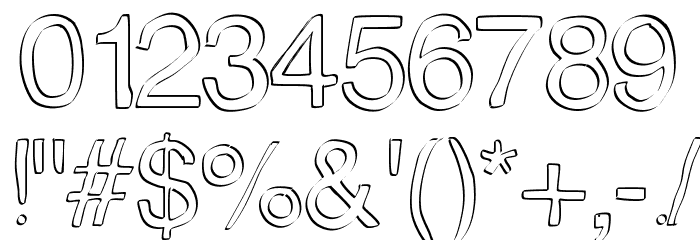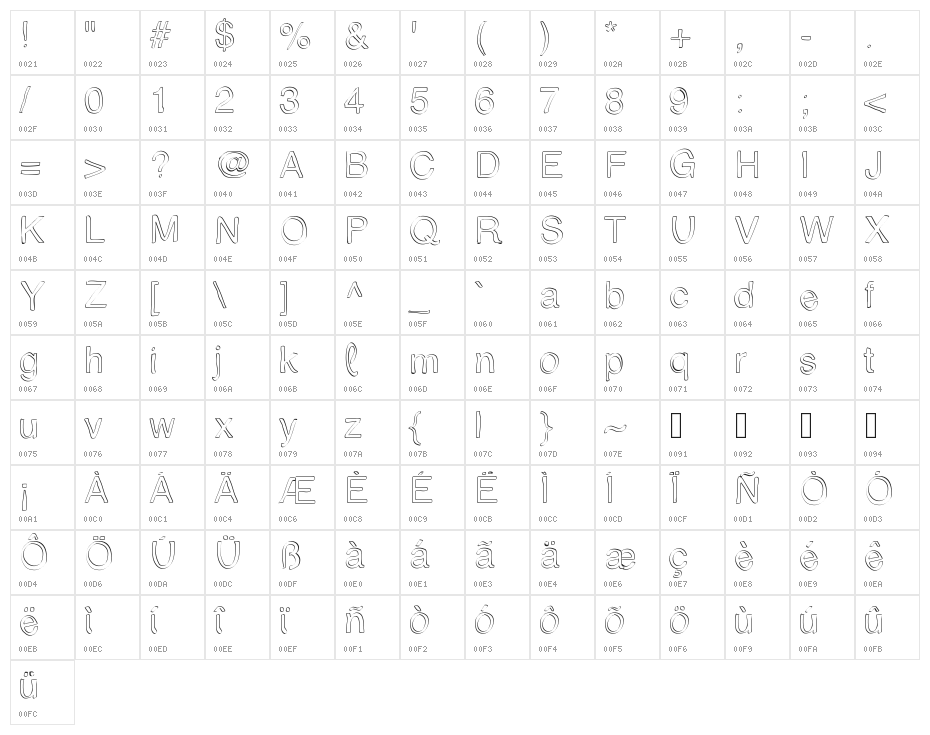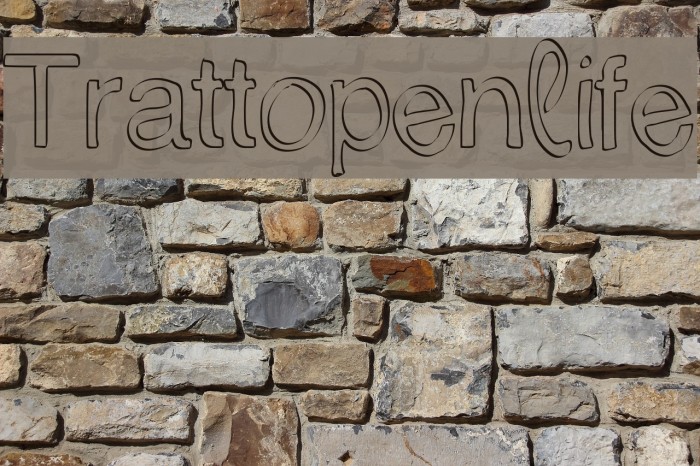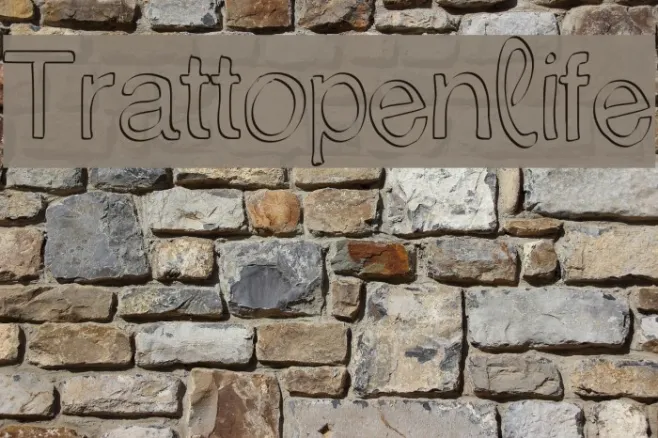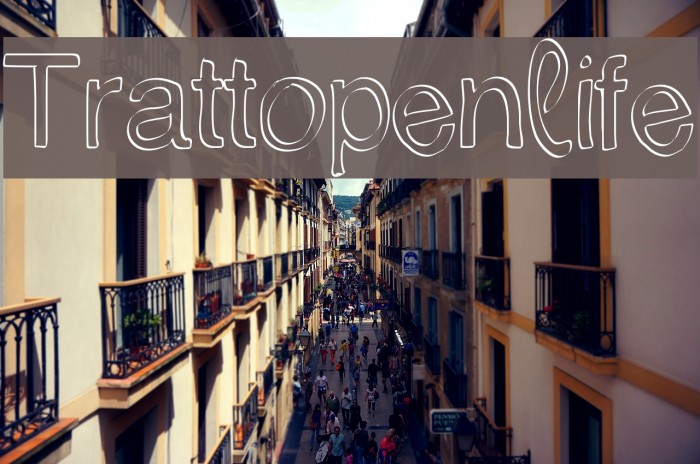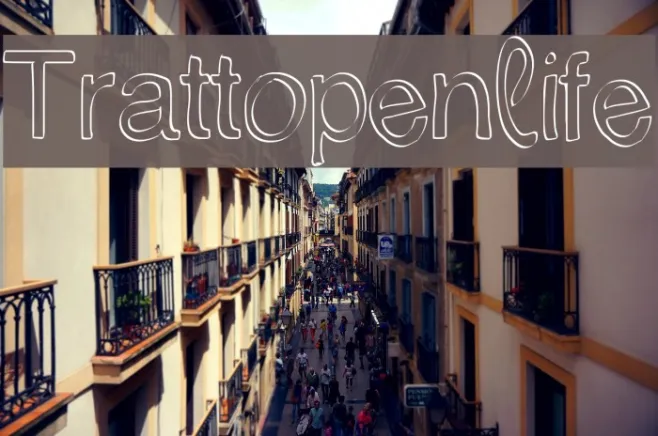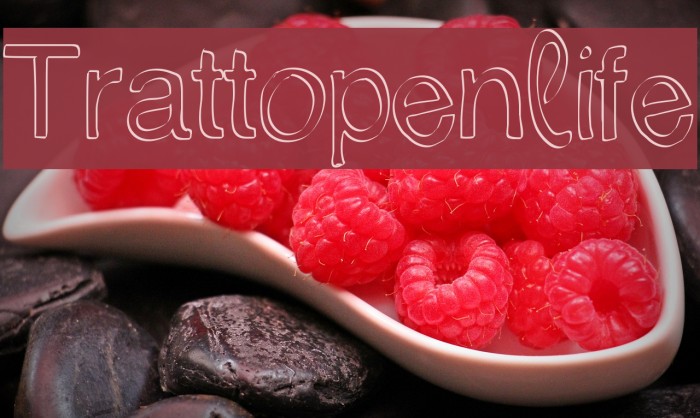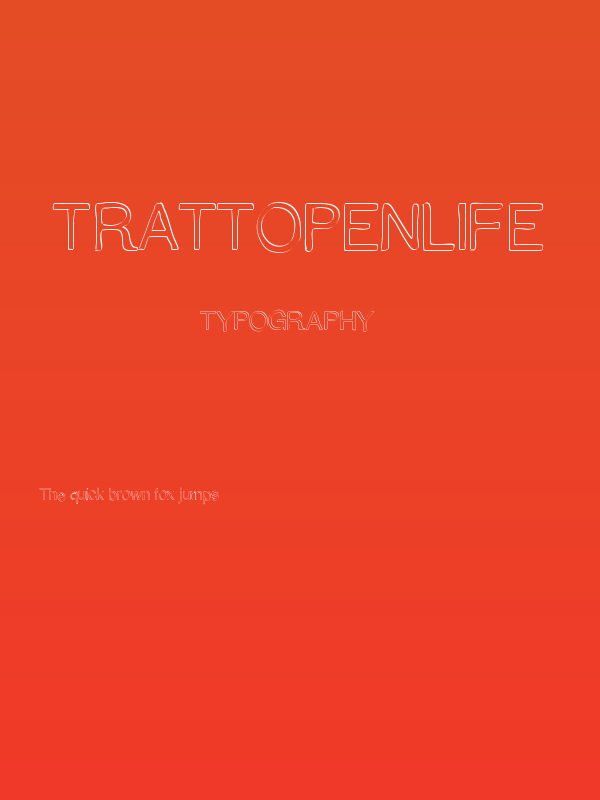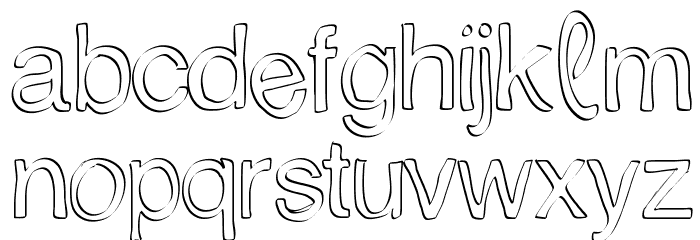
Trattopenlife Font
Trattopenlife Description
This font features a playful and casual design with rounded edges and a hand-drawn appearance. The characters are outlined, giving them a unique, airy feel. The uppercase and lowercase letters maintain a consistent style, with a slight variation in stroke width that adds to the font's charm. The numerals and special characters are designed to match the overall aesthetic, making it versatile for various uses. Its informal style makes it suitable for creative projects that require a friendly and approachable look.
| Proposed Projects | Ideal for children's books, greeting cards, playful branding, and casual invitations. |